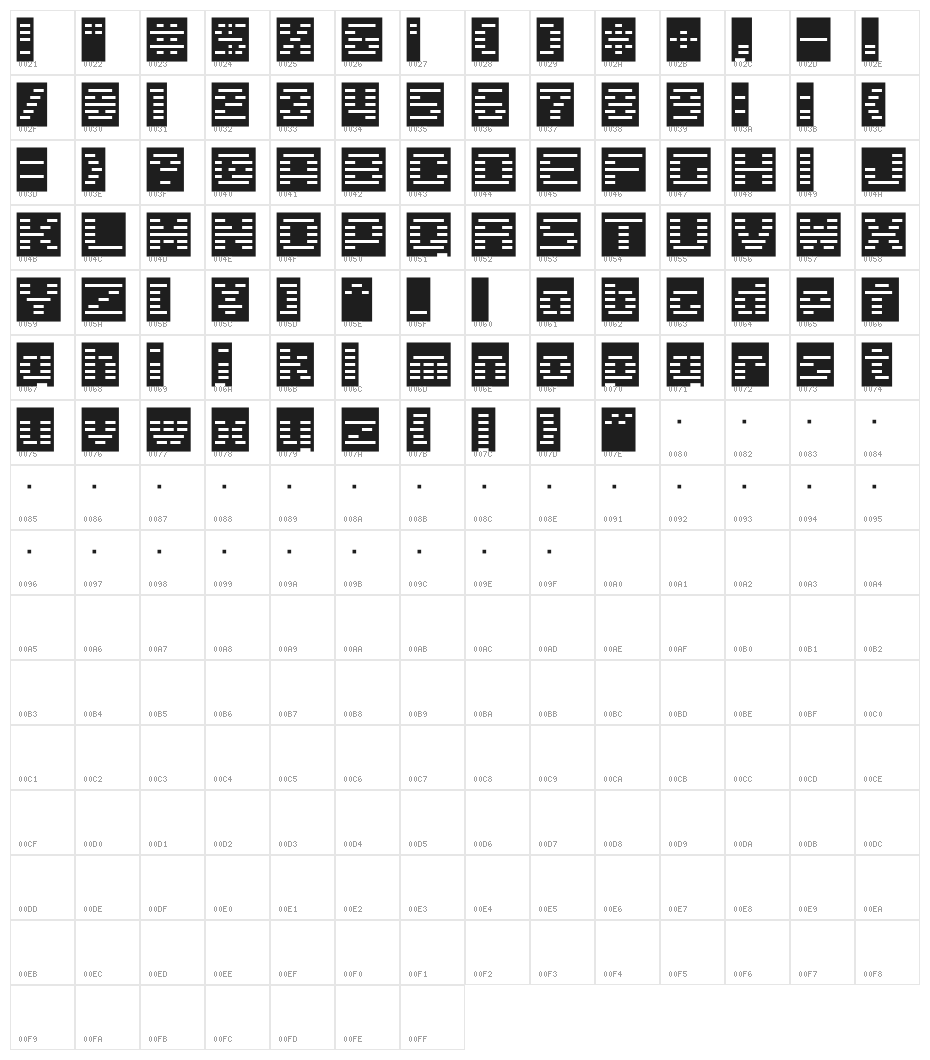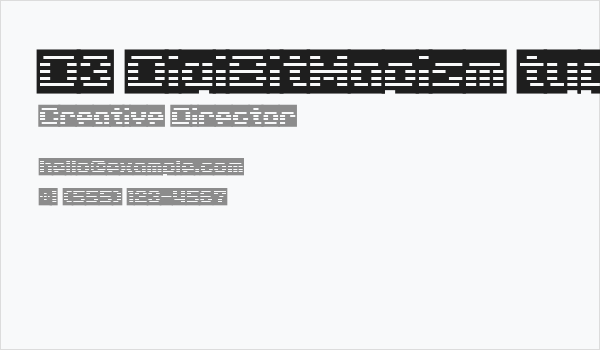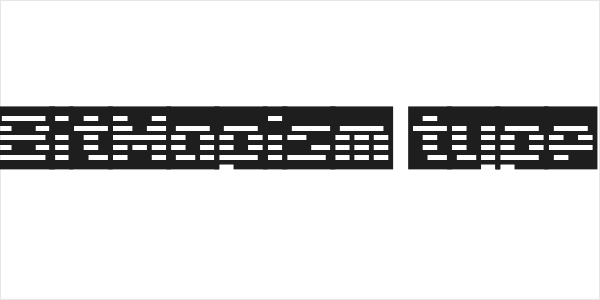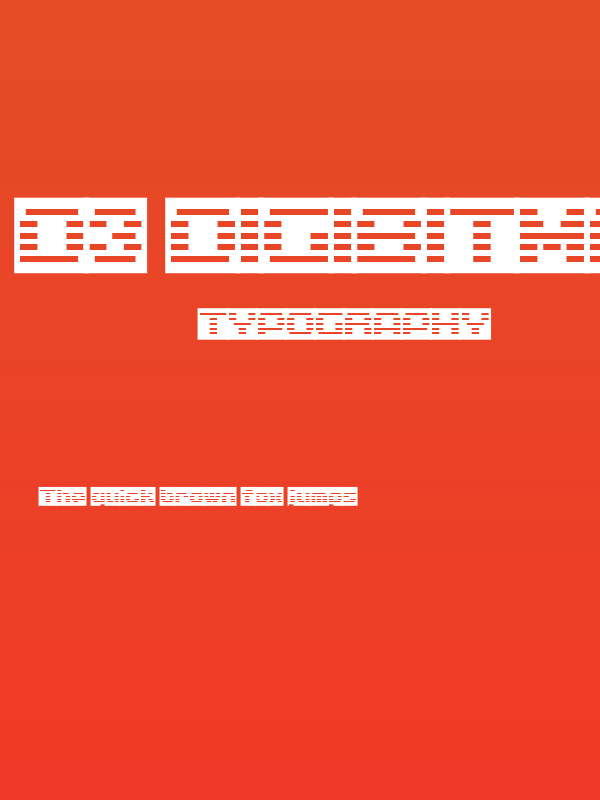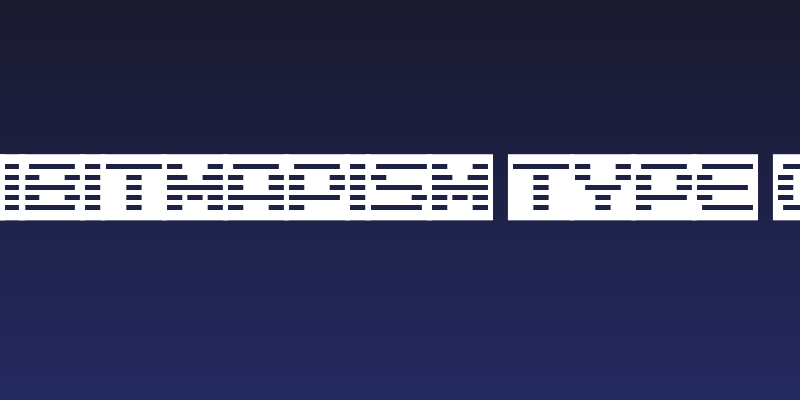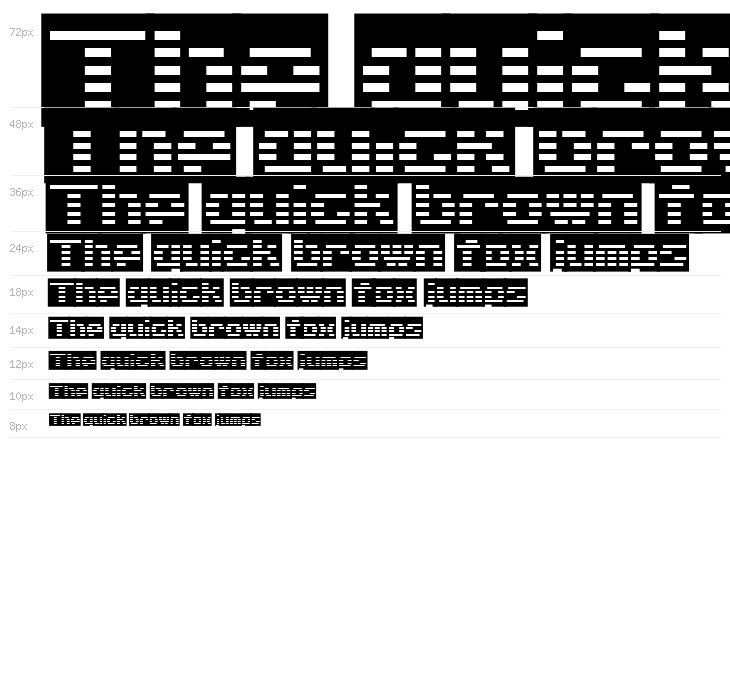
D3 DigiBitMapism type C wide Font
D3 DigiBitMapism type C wide Description
This font features a distinctive digital and pixelated style, reminiscent of early computer displays and bitmap graphics. Each character is composed of a grid-like pattern, giving it a structured and mechanical appearance. The uniformity in the design creates a cohesive look, while the pixelated edges add a retro, tech-inspired feel. The uppercase and lowercase letters maintain a consistent height, and the numerals and special characters follow the same grid-based design, ensuring visual harmony across all elements. This font is ideal for projects that aim to evoke nostalgia for early digital technology or to create a futuristic, tech-savvy aesthetic.
| Overall Style | Retro, Tech-inspired |
| Use Case | Headlines, Logos, Digital displays |
| Proposed Projects | Ideal for video game design, tech-themed posters, digital art projects, and retro-style branding. |